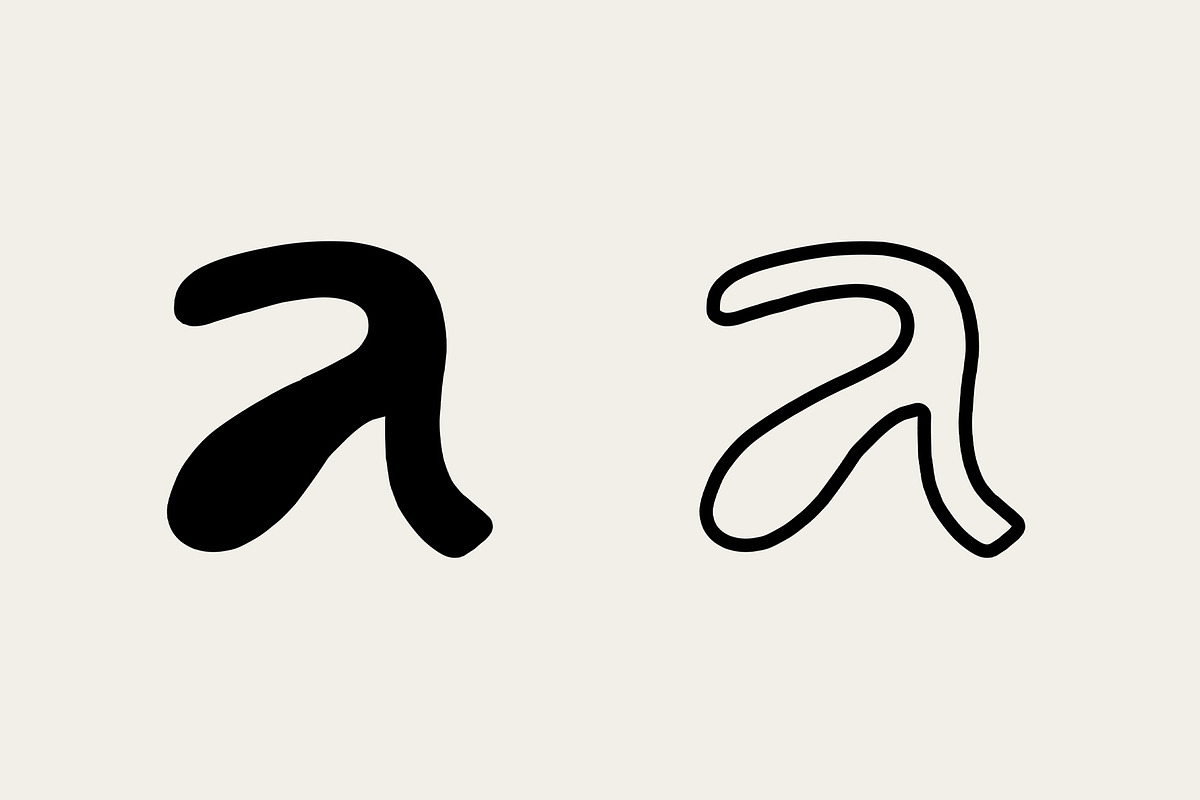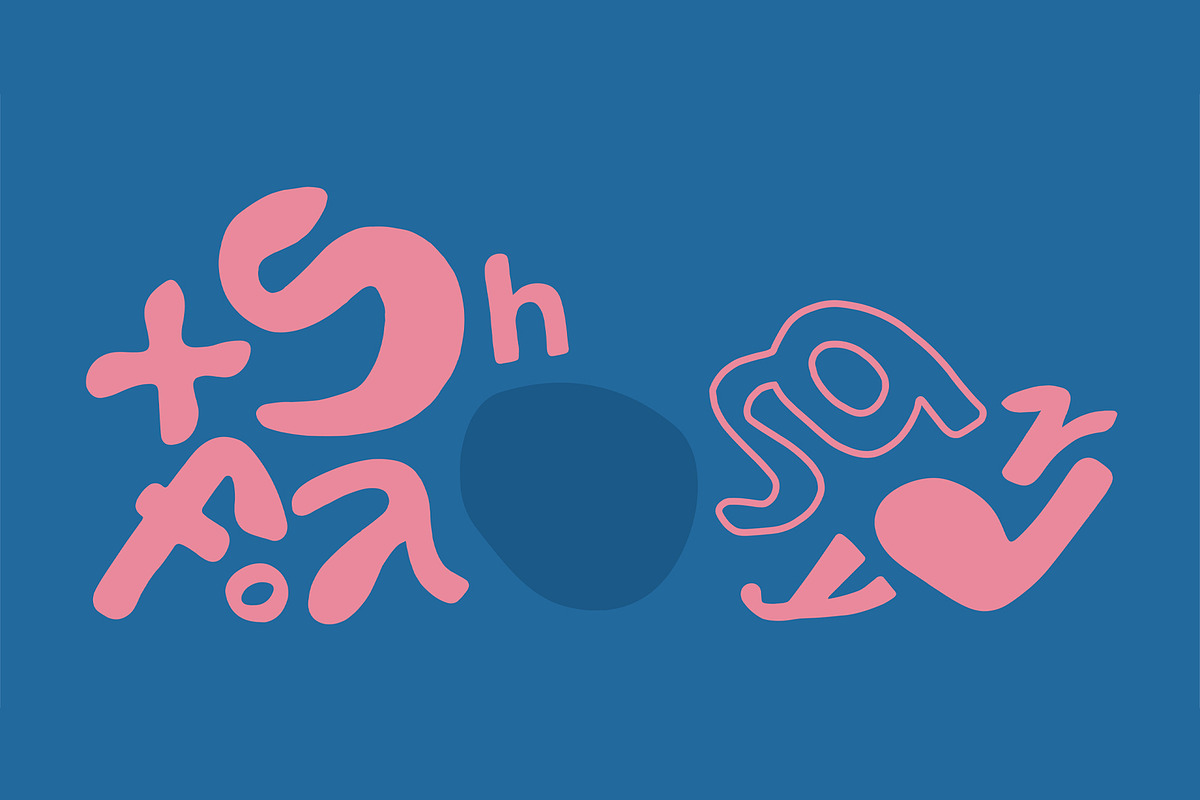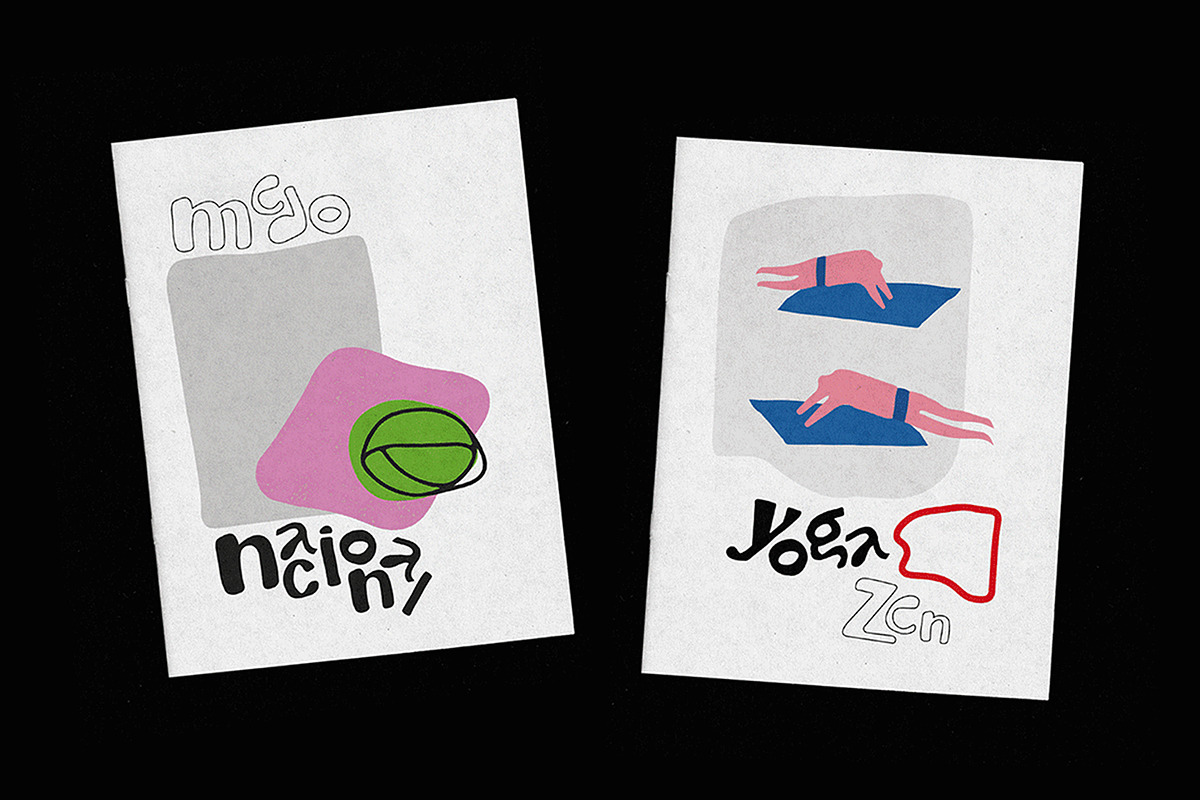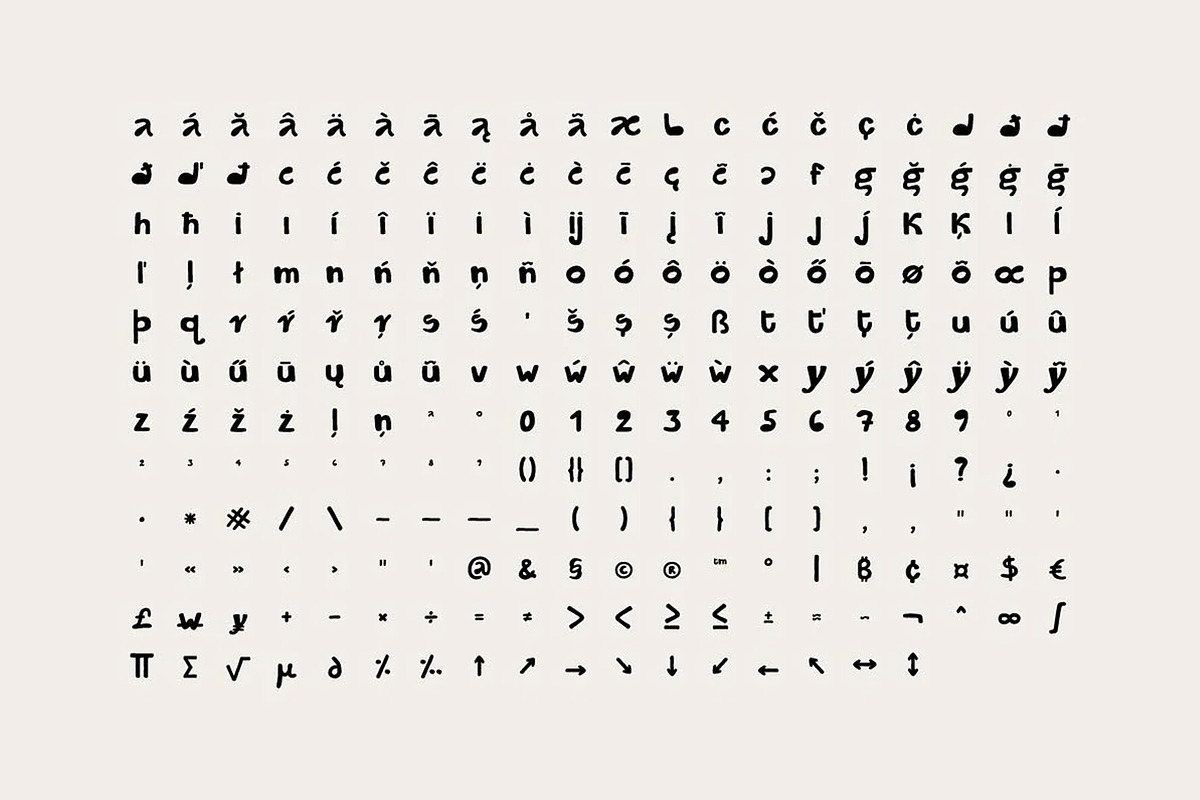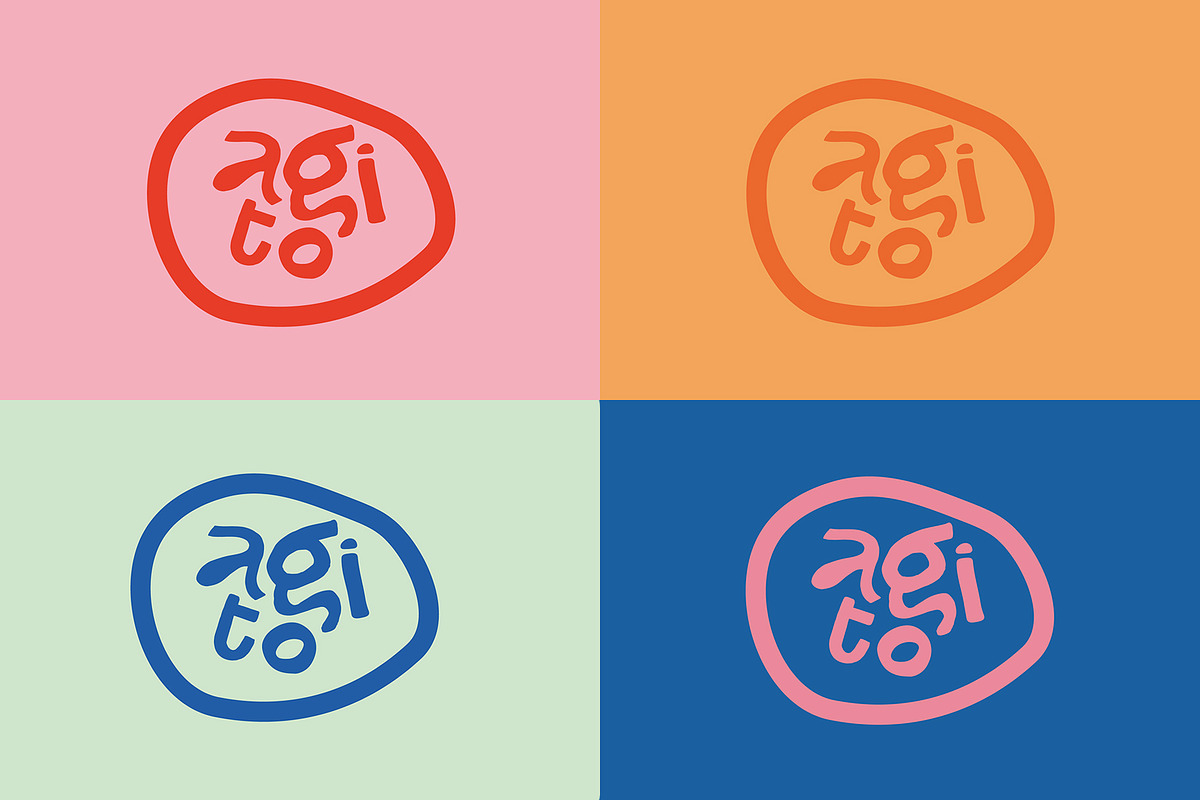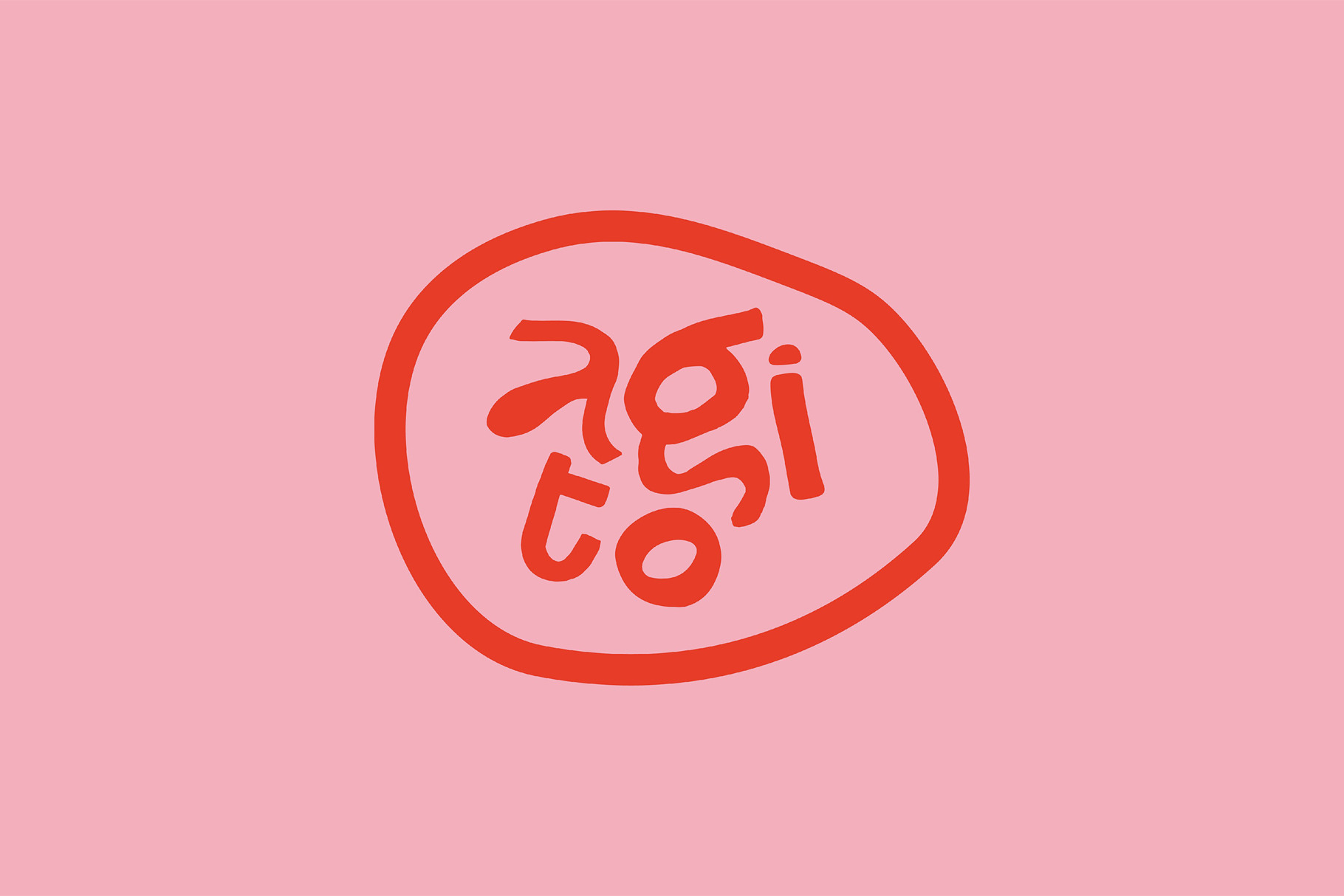
AGITO — Playful Display Font
Agito is a sans-serif display font, inspired by the modernist design movement. Handcrafted with ink to draw each of its characters, the Agito typography is marked by its curves and fluidity, ensuring great cohesion between its letters and making it ideal for typographic arrangements, artistic posters and logos.
The typeface was developed as an academic project at the Federal University of Rio de Janeiro, Brazil. Support local designers, artists and students.